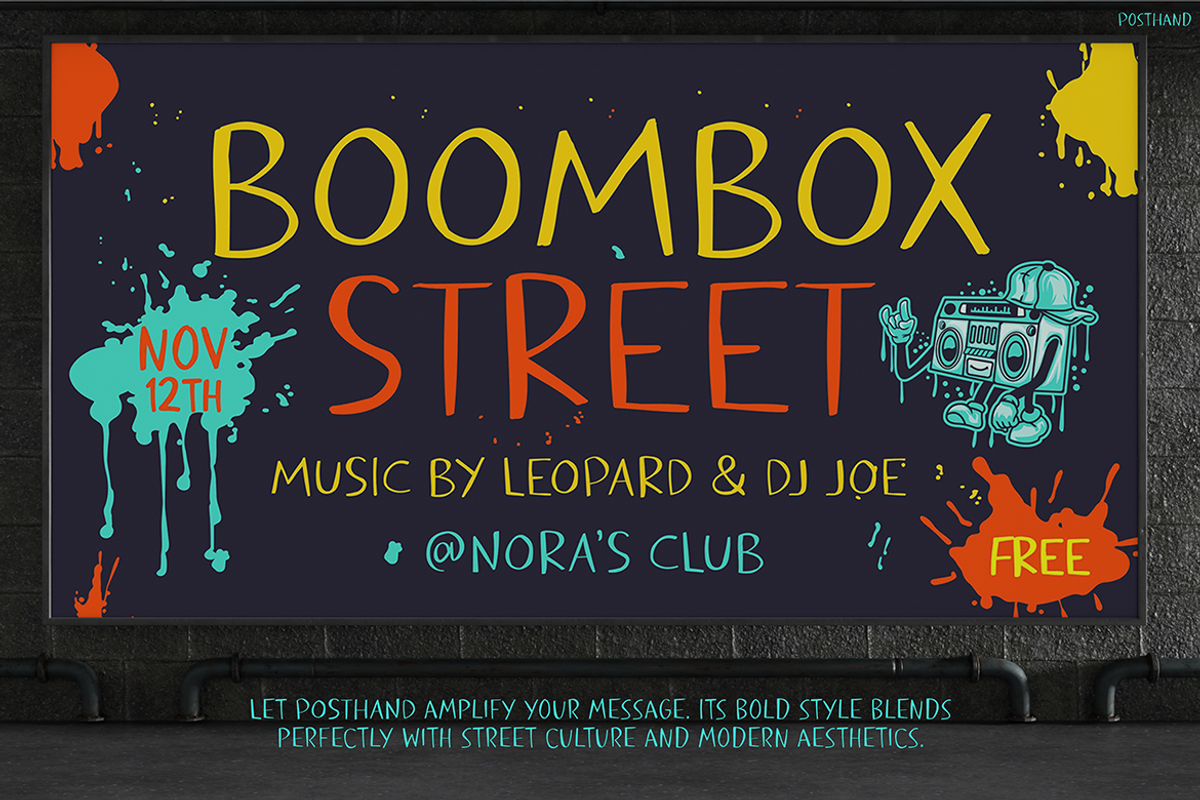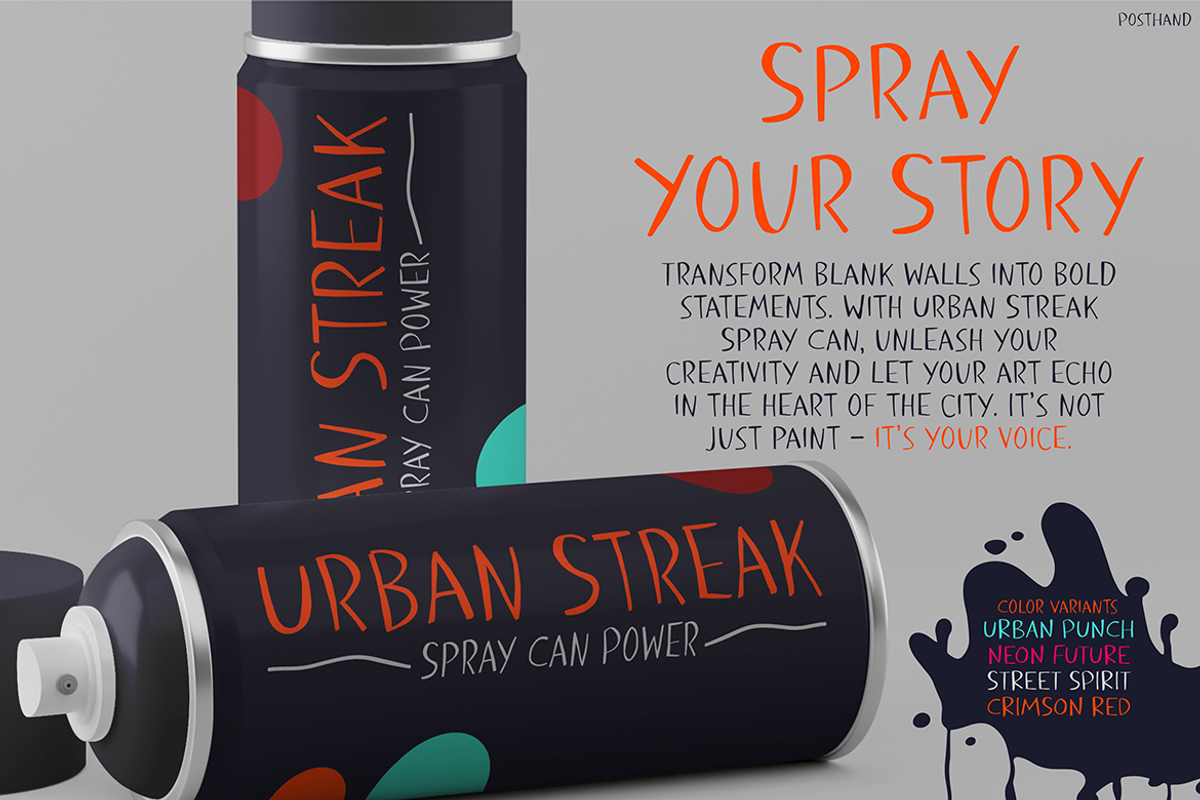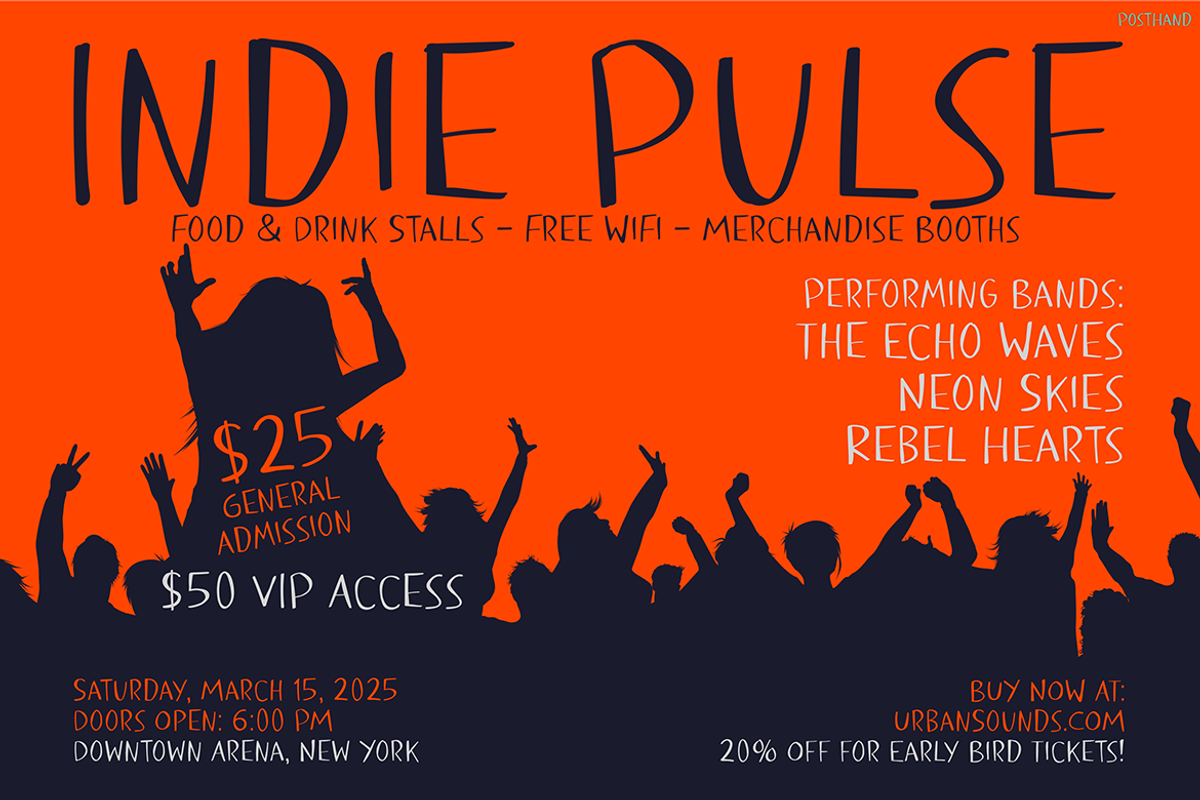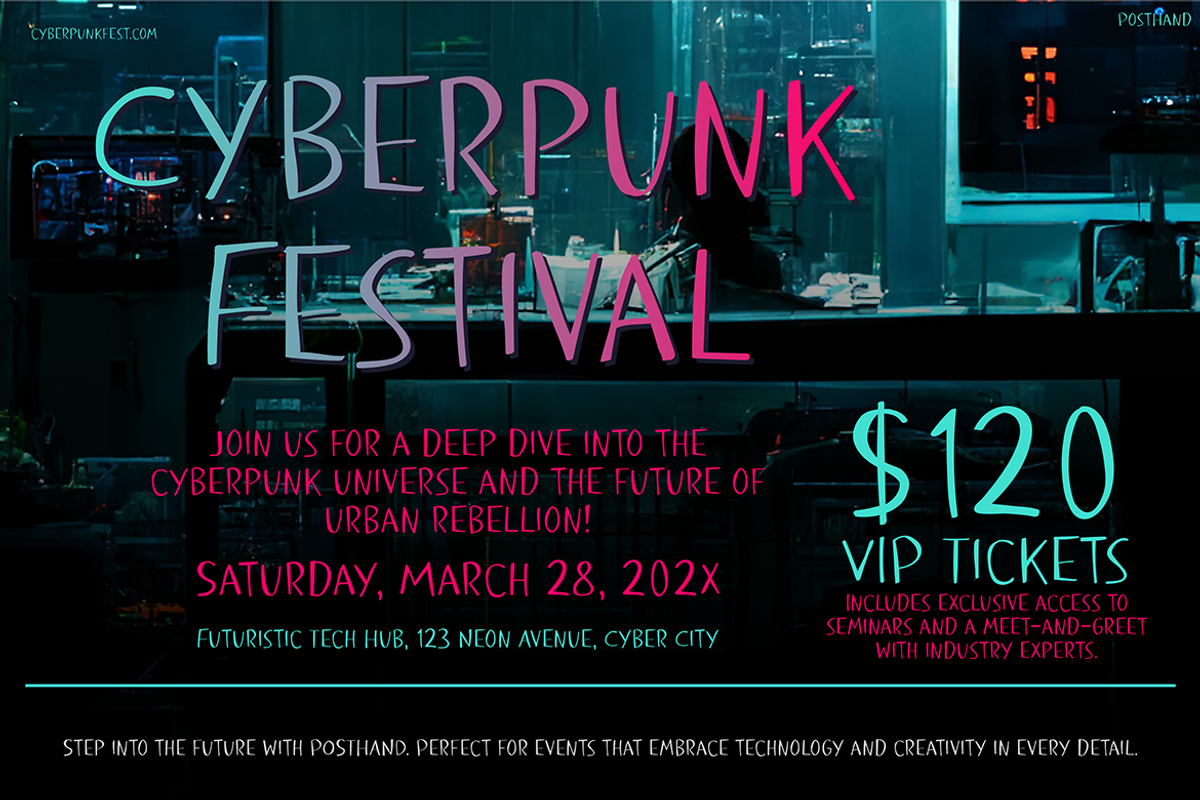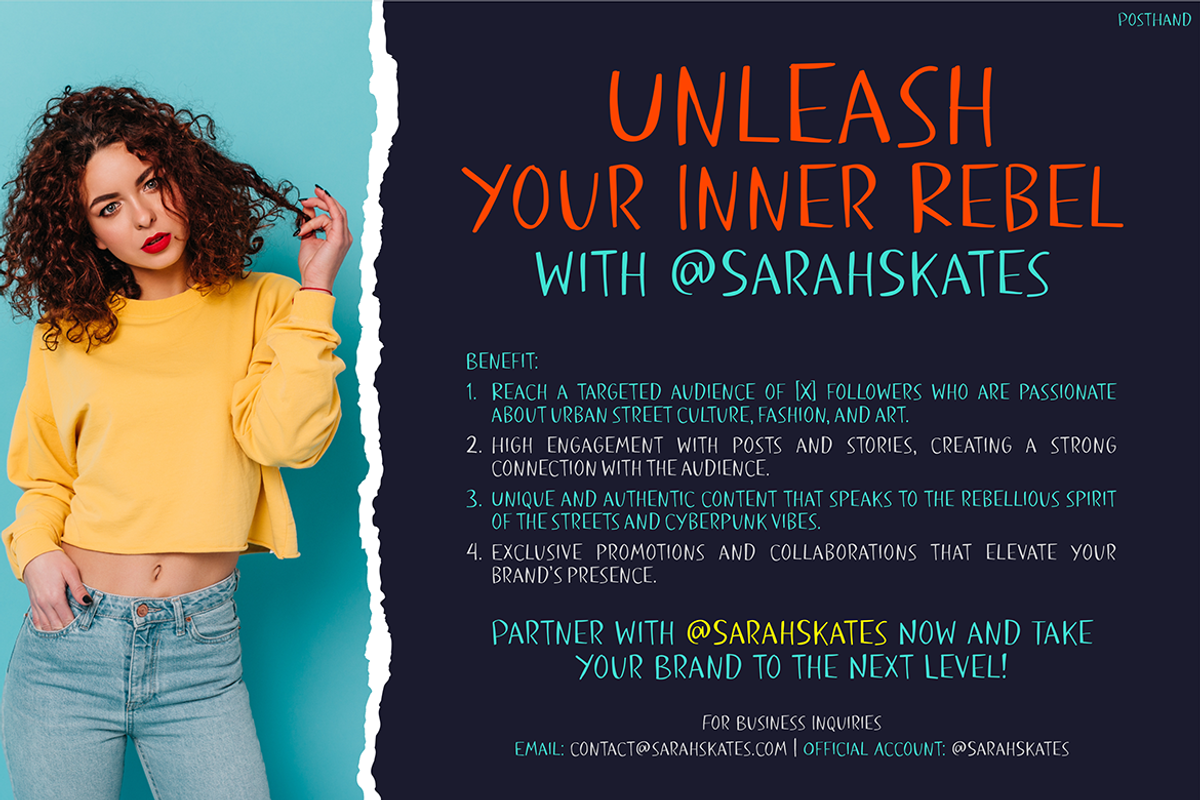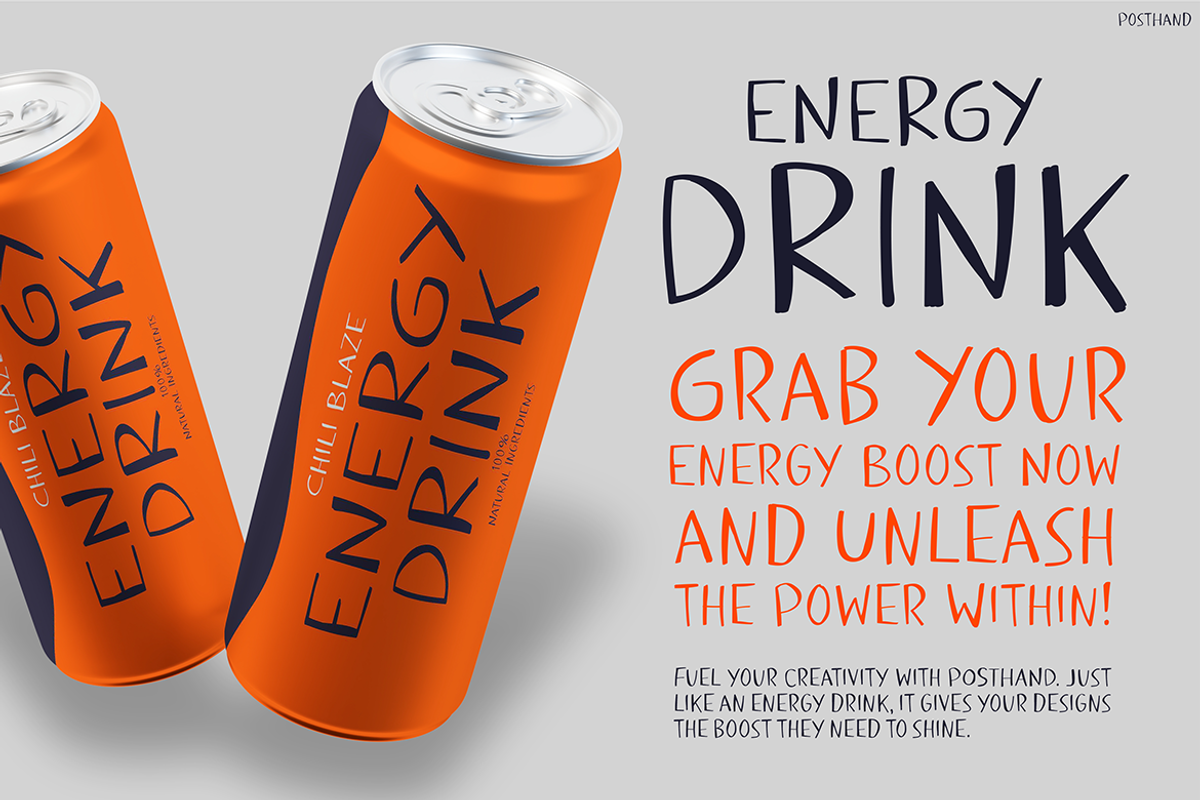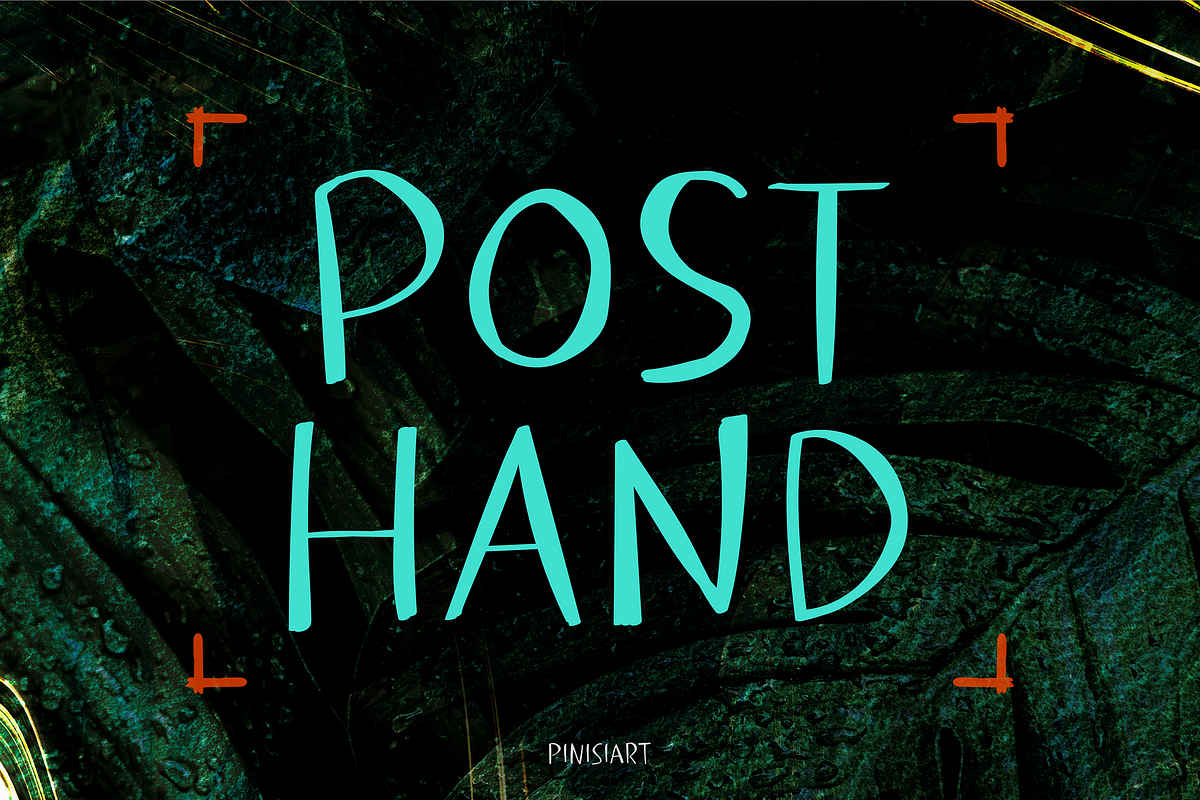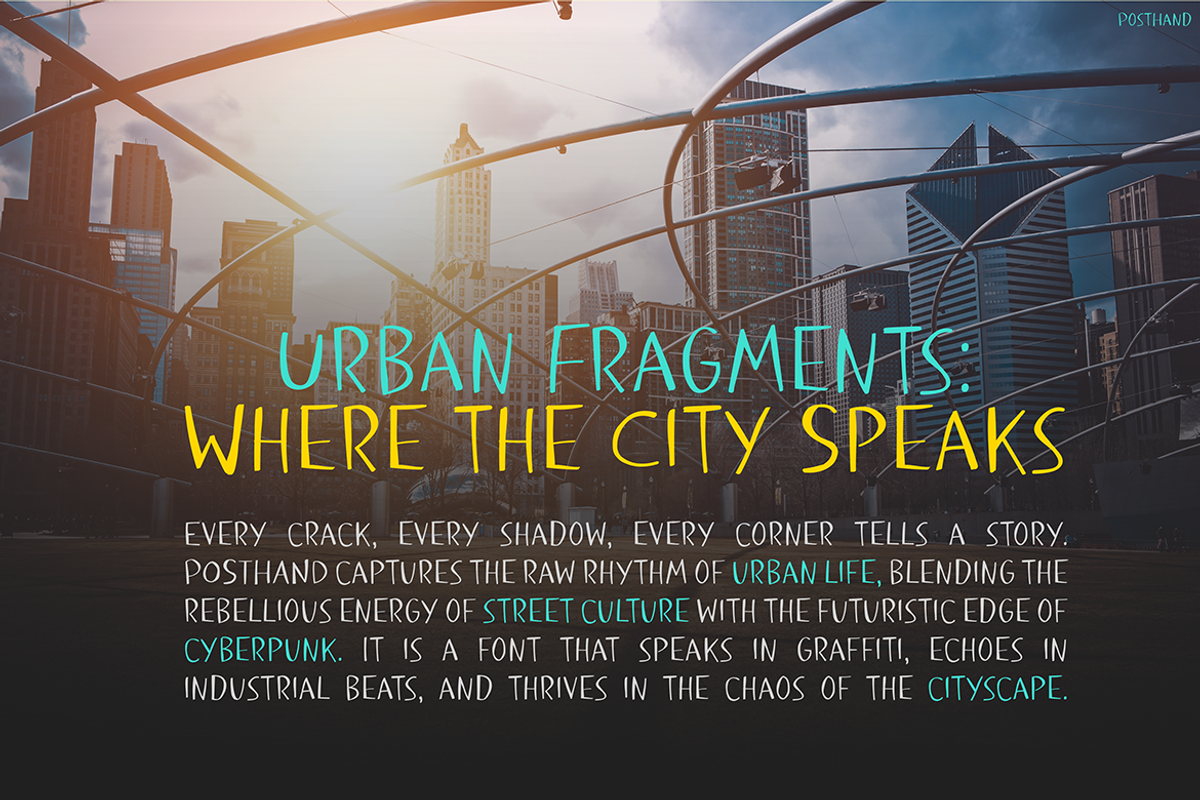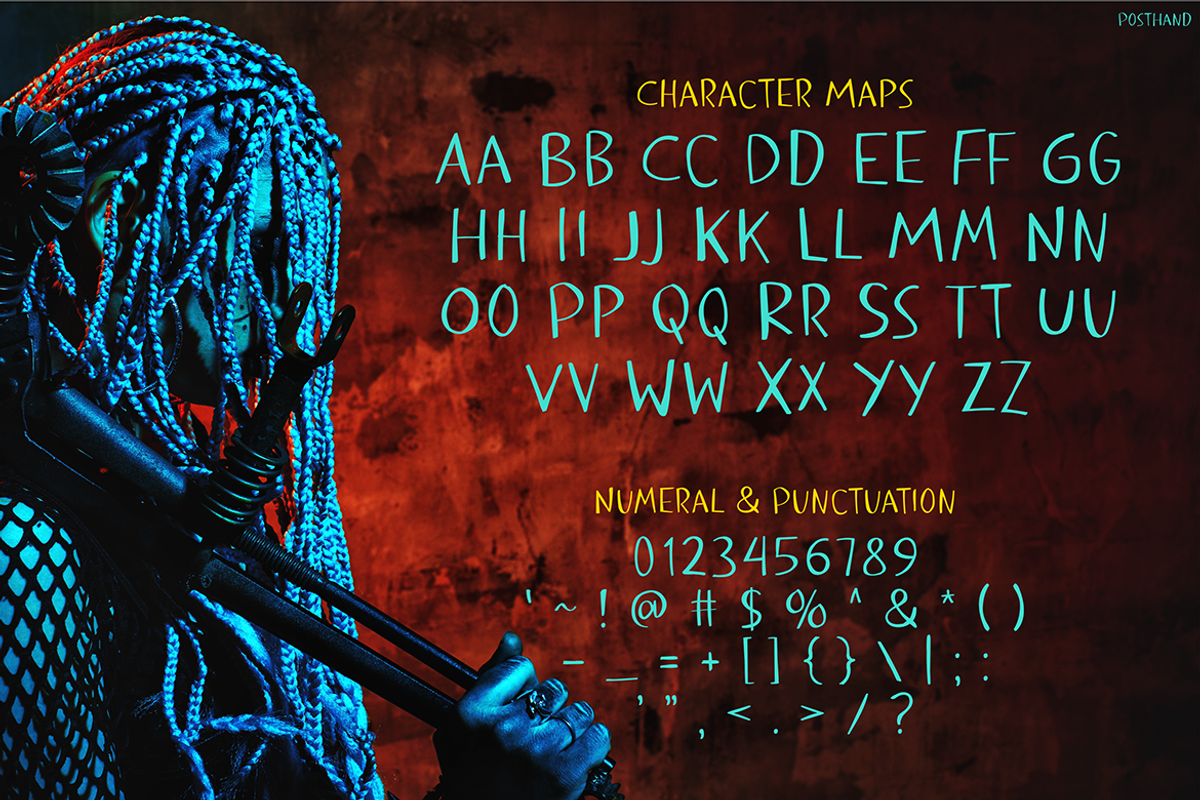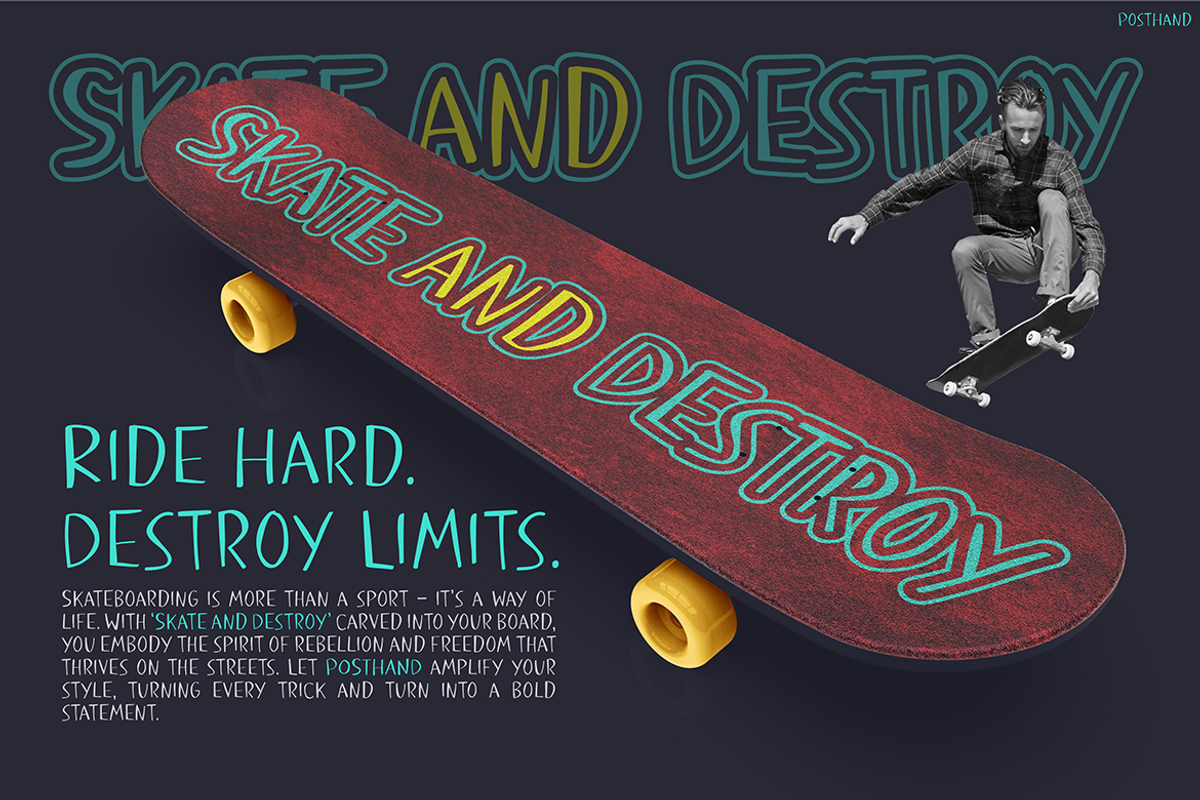
POSTHAND
Handwriting Font POSTHAND is a stylish and modern handwritten typeface. It captures the essence of authenticity and creativity. Designed with fluid strokes and bold, playful elements, this font radiates a contemporary charm. Moreover, its irregular and spontaneous strokes create a hand-drawn aesthetic that feels personal and approachable. Additionally, the whimsical nature ensures your text stands out without being overly formal.
With its clean yet expressive design, POSTHAND is perfect for various creative projects. For example, it’s ideal for branding, invitations, and social media graphics where individuality matters. Furthermore, the font’s smooth curves and effortless flow enhance readability while evoking a casual tone. Whether used as a focal point or a complementary touch, this handwriting font adds a unique and humanized feel to your text. It’s also a great choice for printed materials like flyers, brochures, or product labels that need a touch of elegance and fun. Moreover, it works well in digital environments, making websites or apps appear more engaging and friendly.